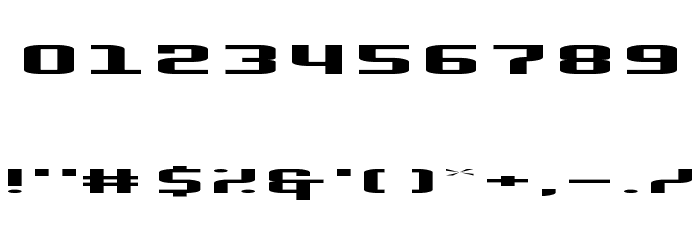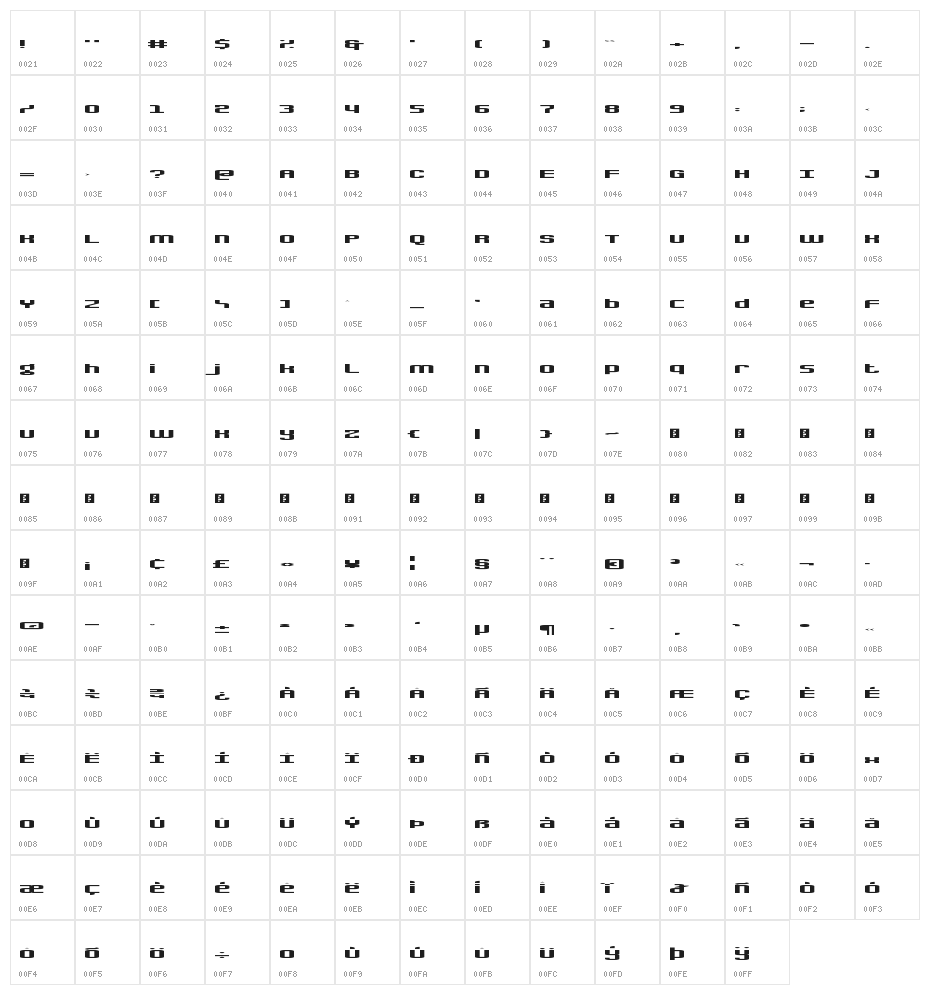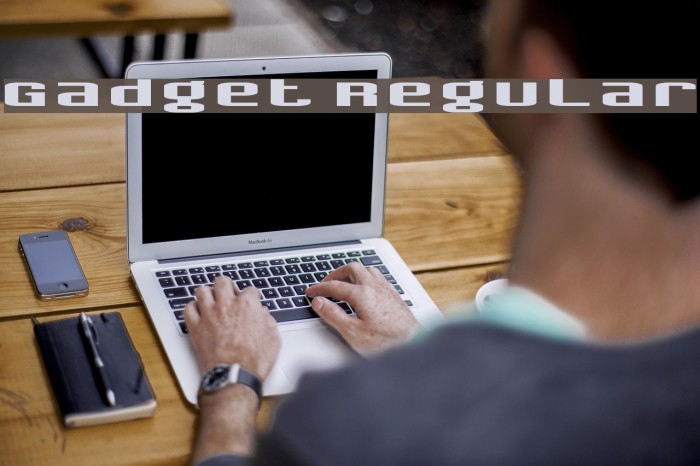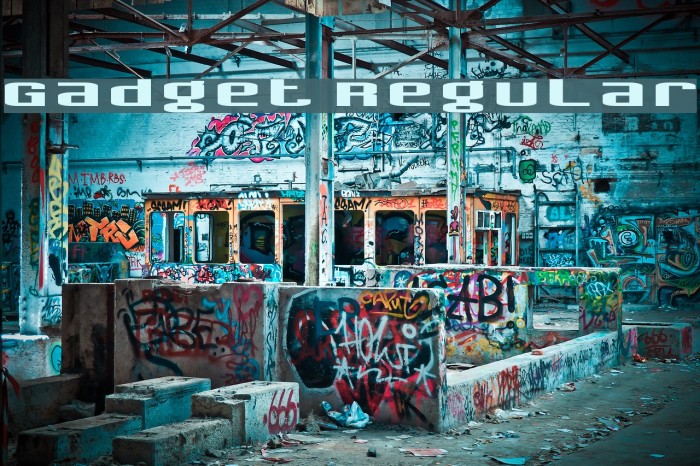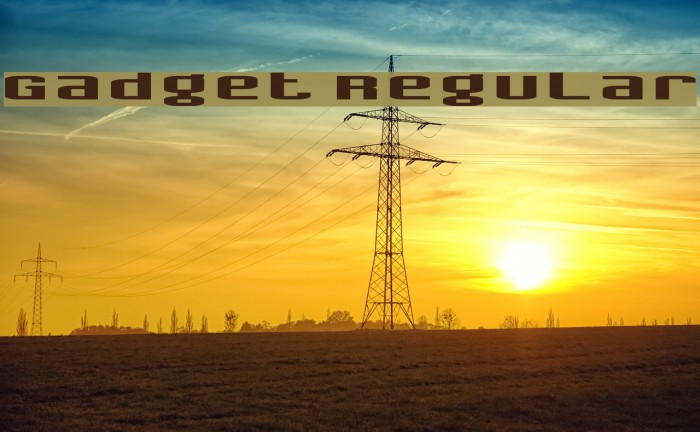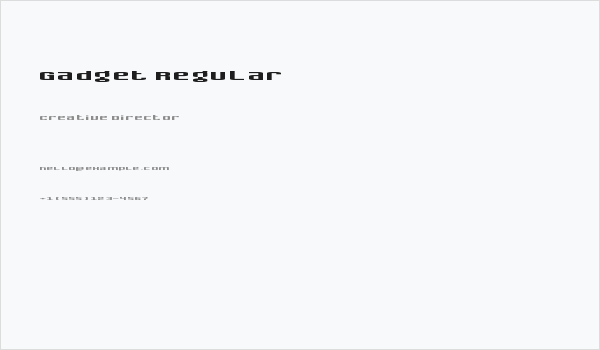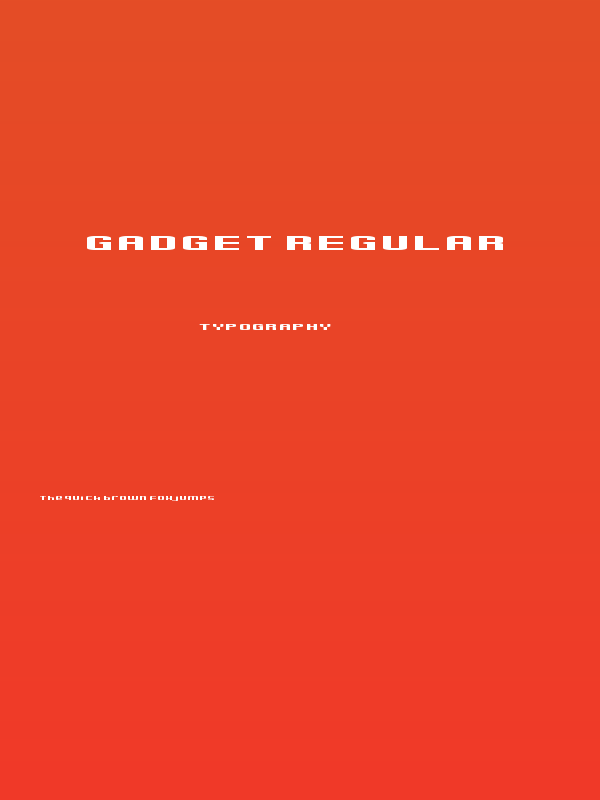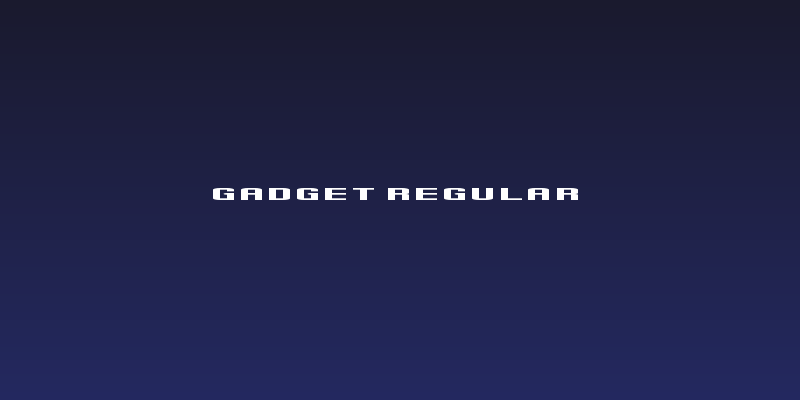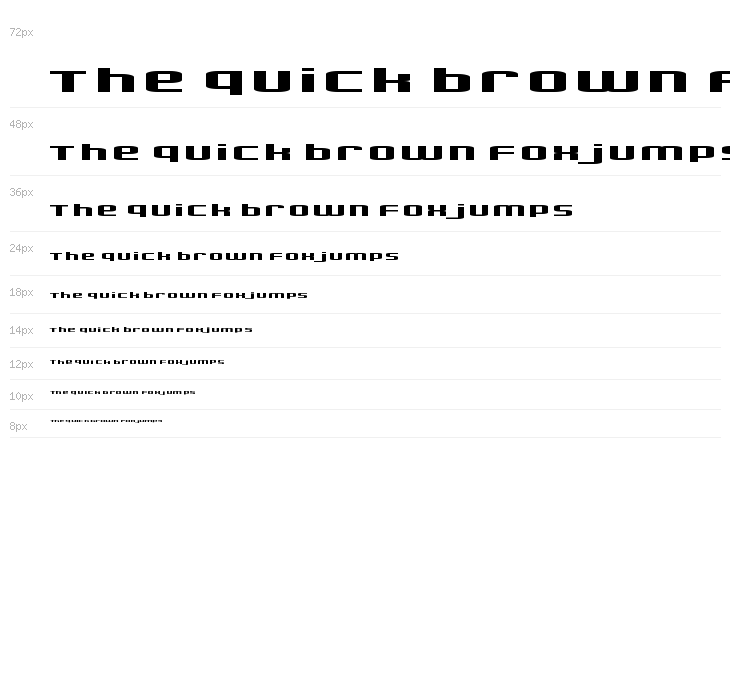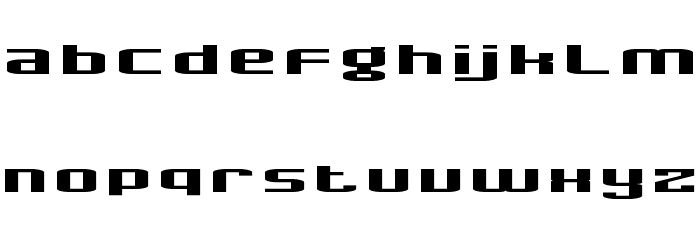
Gadget Regular Font
Gadget Regular Description
This font features a bold, geometric design with a futuristic and tech-inspired aesthetic. The characters are constructed with uniform stroke widths, creating a consistent and cohesive look. The uppercase and lowercase letters maintain a similar structure, emphasizing straight lines and angular corners. The numerals and special characters follow the same design principles, ensuring a harmonious appearance across all glyphs. The font's style is both modern and distinctive, making it suitable for projects that require a strong visual impact.
| Proposed Projects | Ideal for technology branding, sci-fi themed designs, video game interfaces, and modern advertising campaigns. |